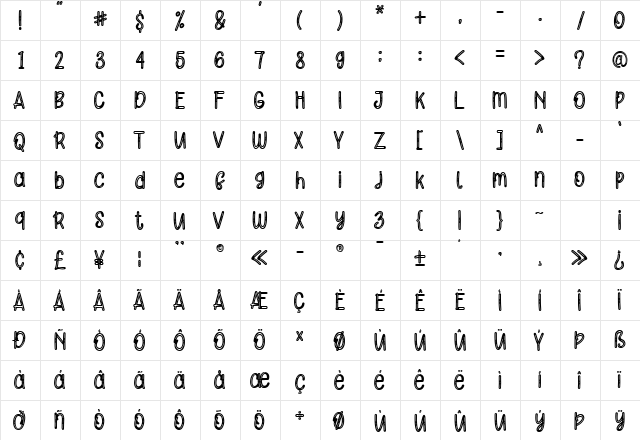
ORANGE CATS Regular
| Foundry | Zain Studio 2020 |
| Designer | Zain Studio 2020 |
Design Context for ORANGE CATS Typeface
ORANGE CATS is a composed and adaptable typeface that performs quietly and consistently across a wide range of design contexts.